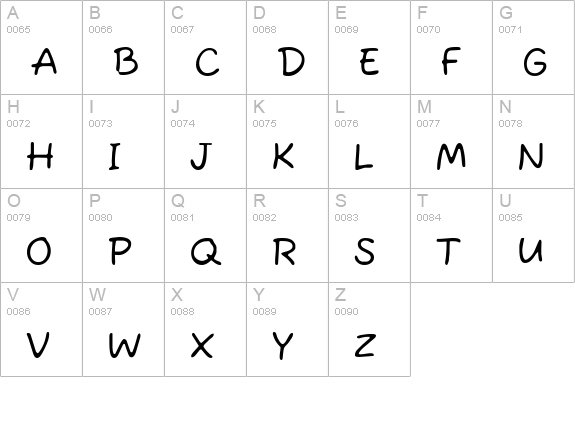
FuzzyBubblesROB font is a playful and whimsical typeface that will add a touch of fun to any design project. Its unique rounded edges and fuzzy appearance give it a soft and inviting look, making it perfect for children's books, greeting cards, and other creative endeavors. This font exudes a sense of innocence and charm, making it a great choice for projects that aim to capture a sense of wonder and imagination. And the best part? FuzzyBubblesROB font is available for free download at FontsMarket.com! You can easily add this delightful font to your collection without spending a dime. So why wait? Bring a touch of whimsy to your designs with FuzzyBubblesROB font today!